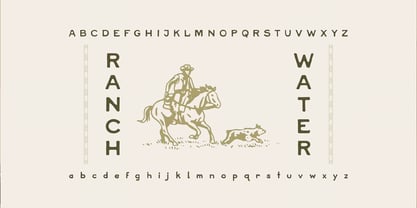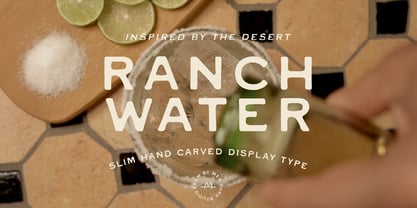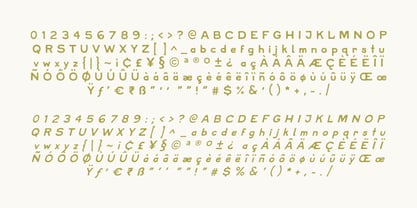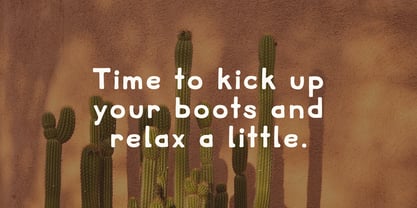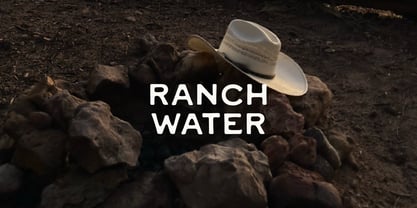
Ranch Water
by By Meg Burk
Ranch Water is a slimmer, more refined evolution of my popular Cowboy font. Created out of a need for a more carved, versatile style, this font retains the warmth and authenticity of the West while offering a more balanced and approachable design, complete with lowercase characters for added flexibility. Perfect for rustic, vintage, and down-to-earth projects, Ranch Water adds a touch of handcrafted charm to any brand or product label.
Ranch Water draws inspiration from the bold, rugged signs of the Wild West, yet it supports multiple languages, making it as versatile as the Texas landscape itself. Whether you're branding a local roadhouse or a product with international reach, this font blends the spirit of the frontier with language support for English, Spanish, French, and German.